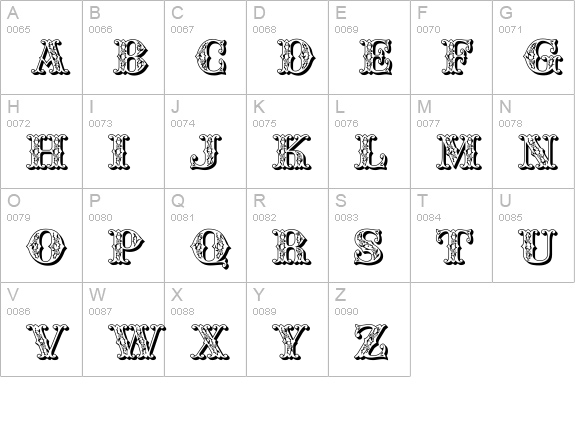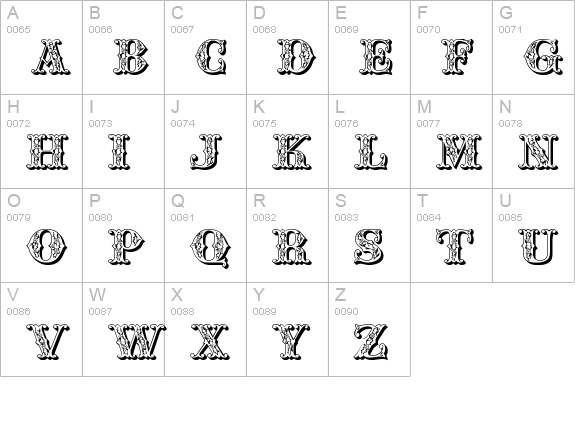
JFSpringFair Font Details
Introducing JFSpringFair font, a delightful display typeface that effortlessly combines elegance with a touch of whimsy. Designed with attention to detail and a creative flair, this font is perfect for adding a playful yet sophisticated touch to your designs. JFSpringFair features a unique blend of curvaceous letterforms and intricate details that bring a sense of liveliness to any project. Its flowing lines and graceful curves create a harmonious balance, making it a versatile choice for a wide range of design applications. Whether you're working on invitations, branding, packaging, or any other creative project, JFSpringFair is sure to make a lasting impression. Its charming personality and refined aesthetics make it a standout choice for those who want to add a touch of uniqueness to their designs. And the best part? JFSpringFair font is freely available to download at FontsMarket.com. This means you can easily access and utilize this stunning typeface without any cost. So why wait? Elevate your designs with the effortless charm of JFSpringFair today!